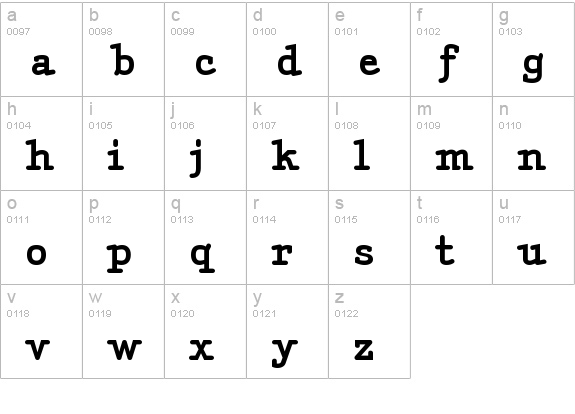
AmintaBold Font Details
AmintaBold is a stunning and versatile font that exudes elegance and sophistication. With its bold and eye-catching design, this typeface is perfect for making a statement in various projects, from branding to advertising. The clean lines and strong presence of AmintaBold make it a great choice for headlines, logos, and other design elements that need to stand out. What's even better is that AmintaBold is available for free download at FontsMarket.com. This means you can easily access this beautiful font and use it in your projects without any cost. Don't miss out on the opportunity to elevate your designs with the timeless appeal of AmintaBold. Download it today and start creating stunning visuals that leave a lasting impression.